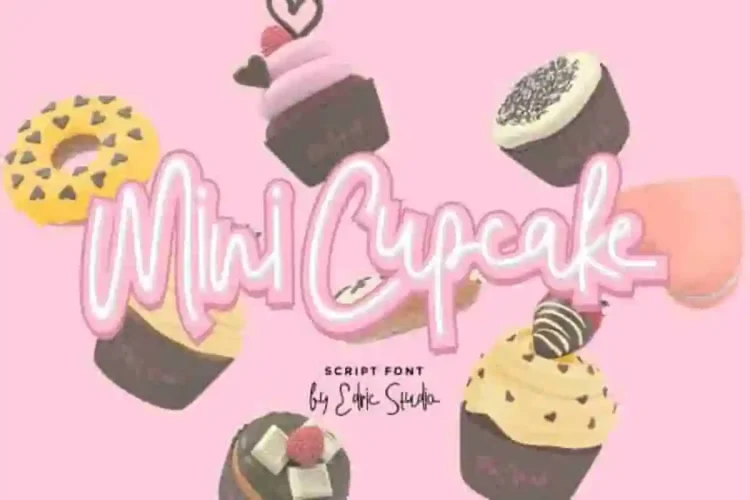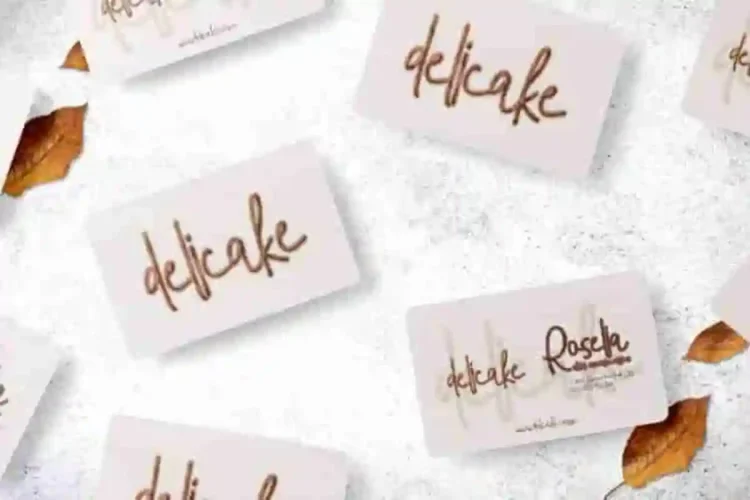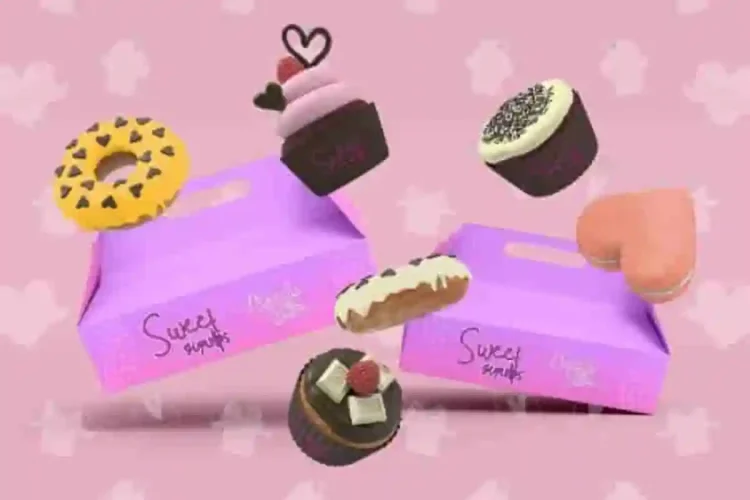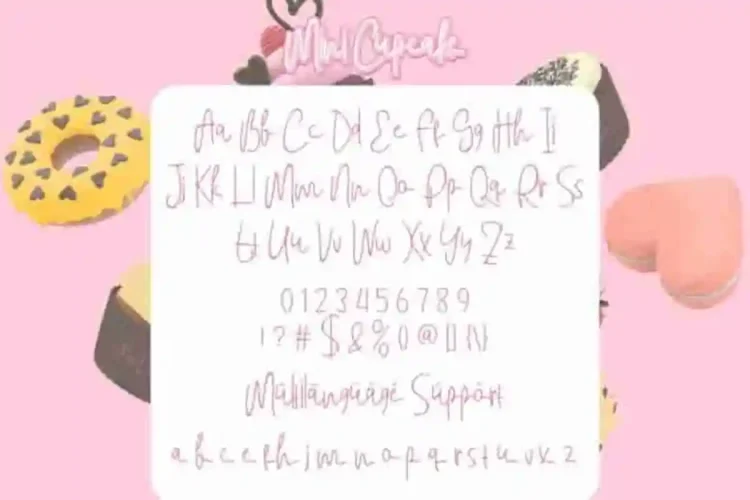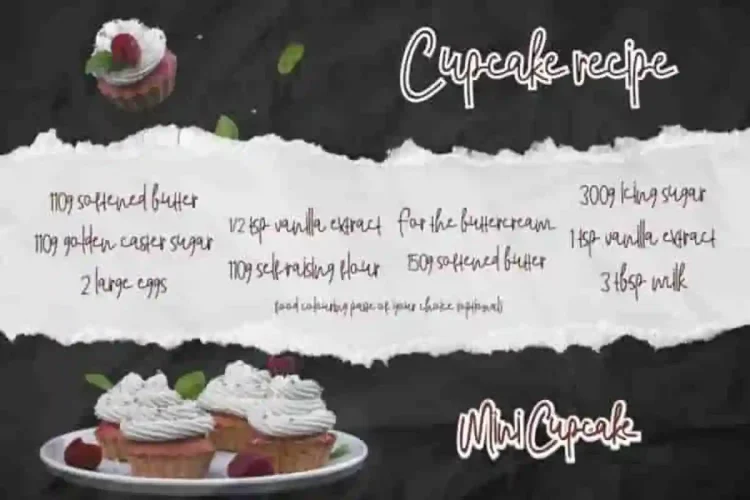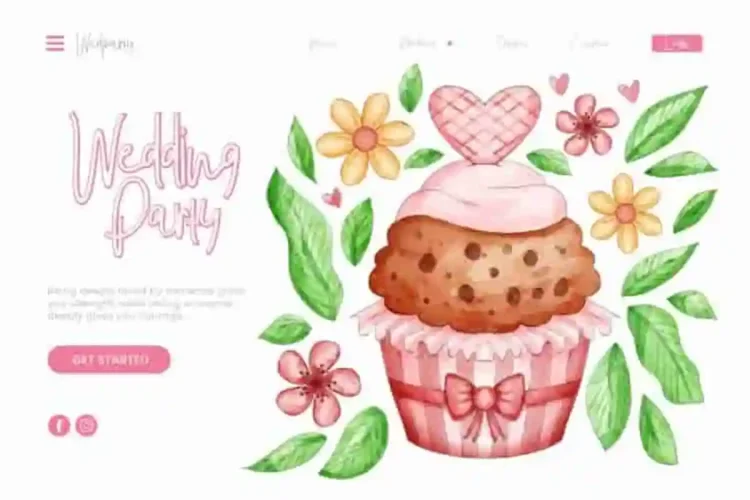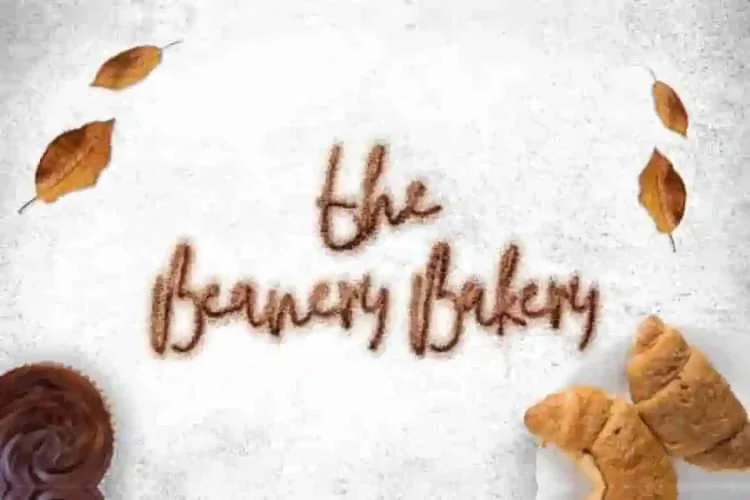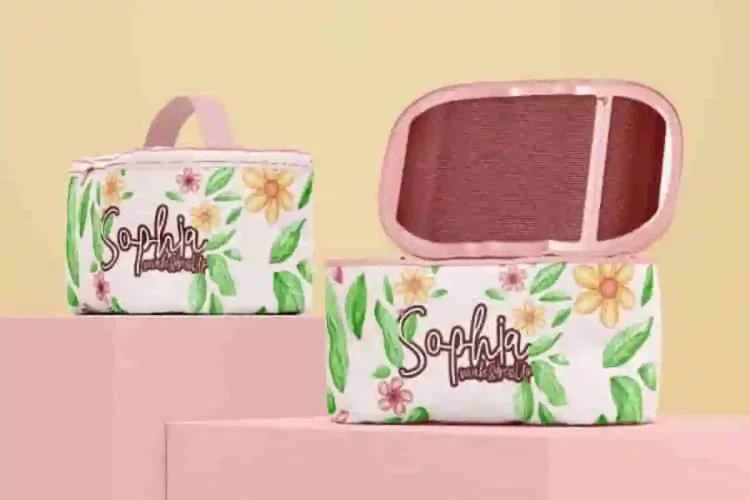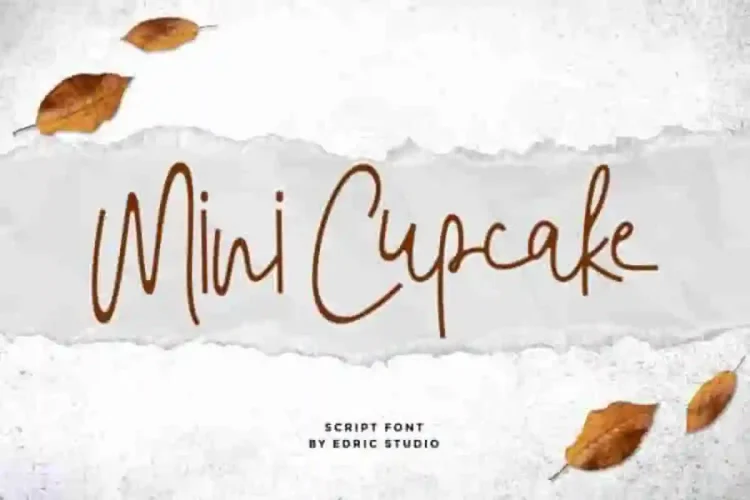
Mini Cupcake Script Font a charming handwriting script font created by EdricStudio. Inspired by cookies, cakes, and sweet things, this font blends a semi-signature style with tall, sleek letters that stay simple and highly readable.
Mini Cupcake Handwritting Script Font Packed with a full set of uppercase, lowercase, numbers, punctuation, symbols, and alternate characters, Mini Cupcake Font offers endless creative flexibility. It has a stunning characters set, perfectly managed with well spaced and kerning. Mini Cupcake Script Font will be great for any projects (with extended license) including: brand logo, brochure, business card, headline, menu, mockup design, picnic lunch box, product packaging, stationery, website, etc.
Mini Cupcake Script Fon is a playful typeface with unique decoration in each character. Ready to use both on Windows machine or Mac with simple installations. It’s fully compatible with Adobe Illustrator, Photoshop, InDesign, and even Microsoft Word. PUA Encode Characters means you can access all the glyphs and other additional characters easily – Fully accessible without additional design software.